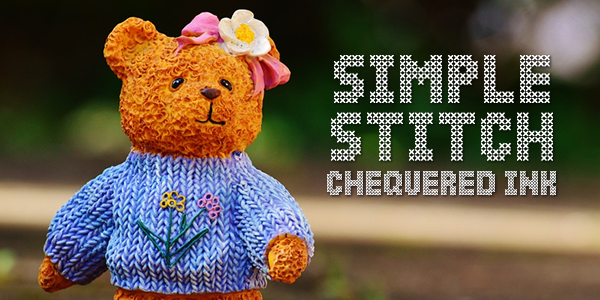
A slightly less resource-intensive alternative to our font "Xmas Sweater Stitch" which you can also find on this site. Please see the enclosed file "FSLA_NonCommercial_License.html", or visit the link for the terms of use of this font. Long story short, you can use this font for free for Non-Commercial (Personal) use, but if you want to use it for Commercial use you will need to purchase a license here: https://chequered.ink/font-license/ Thank-you, and enjoy the font! |